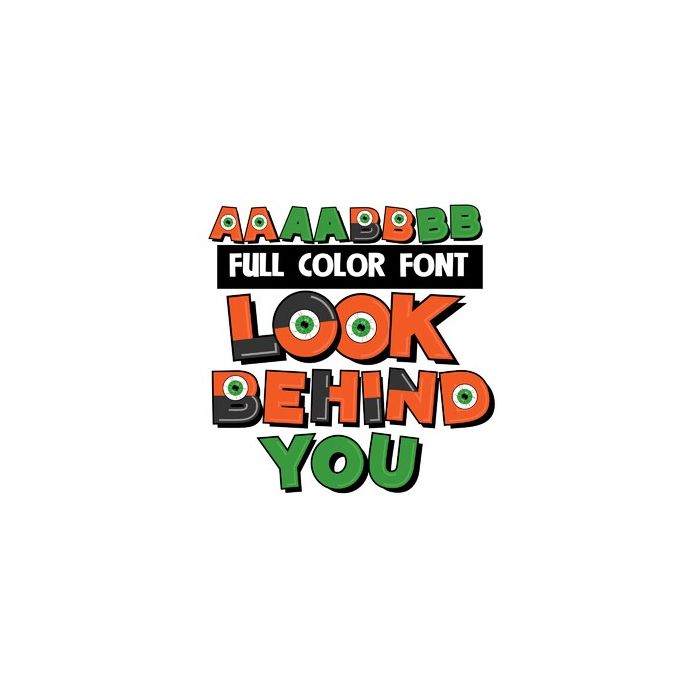
This full-color font features blocky lettering with eyeballs throughout. There is a secondary alt case for both upper and lower that you can access through your system or Silhouette's glyph map.